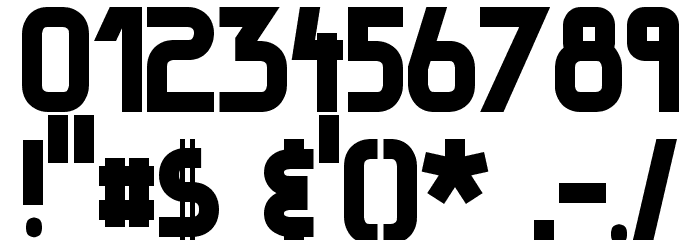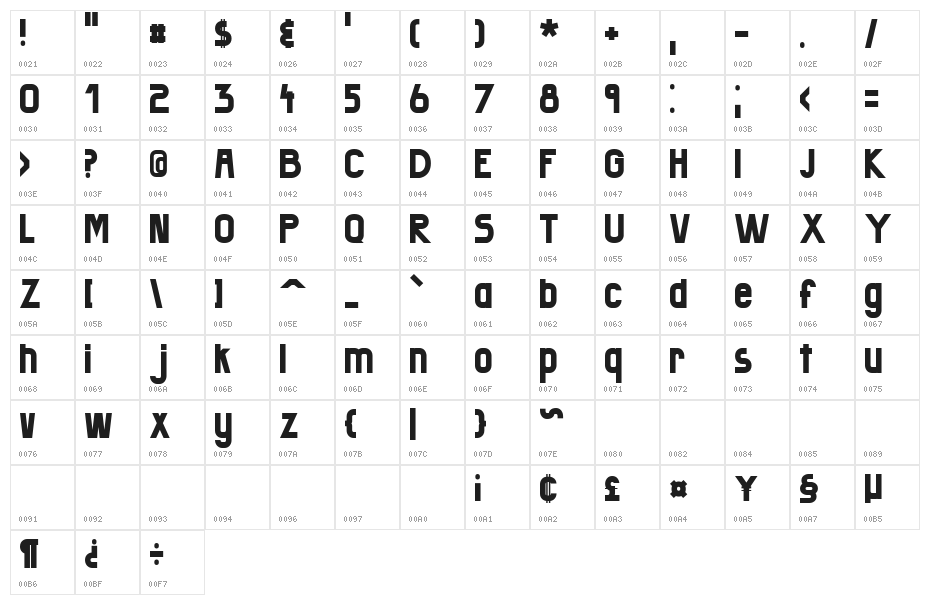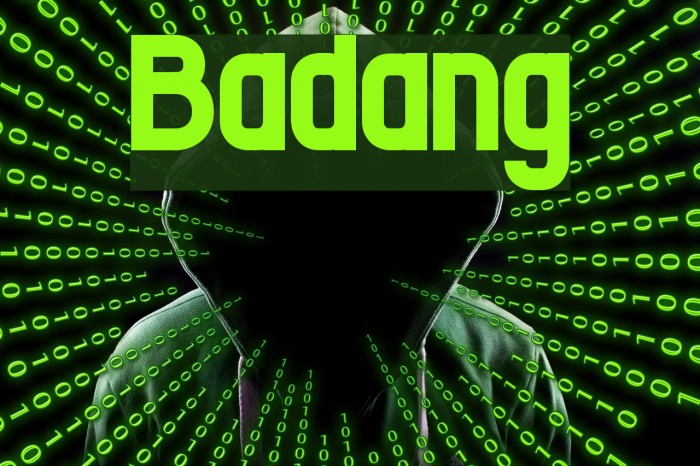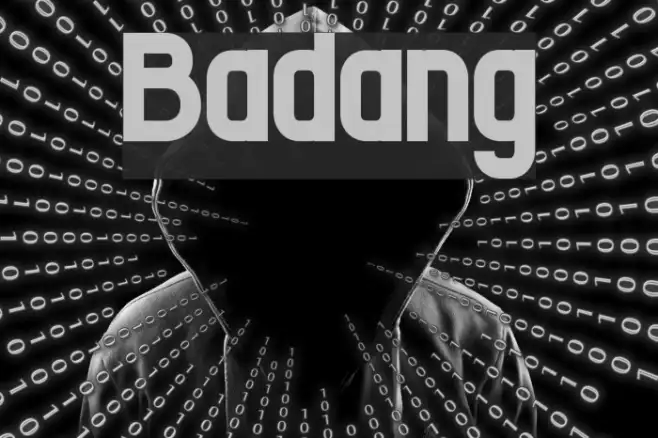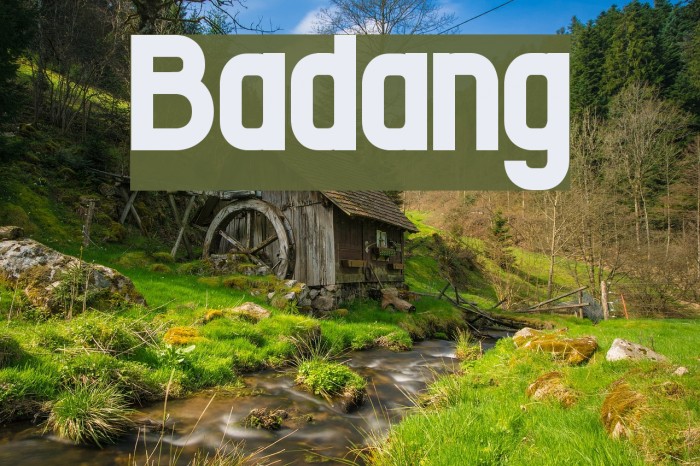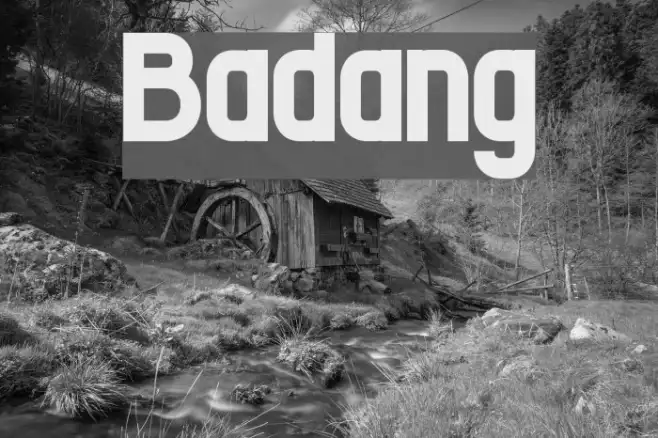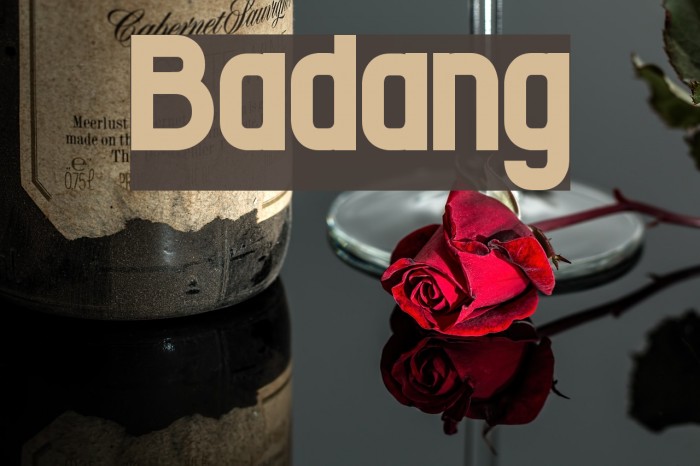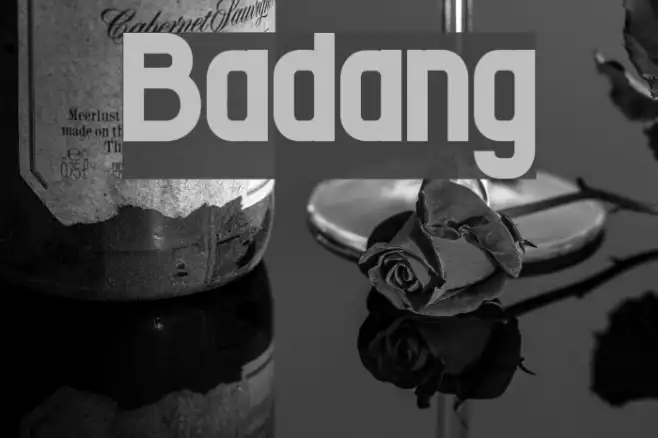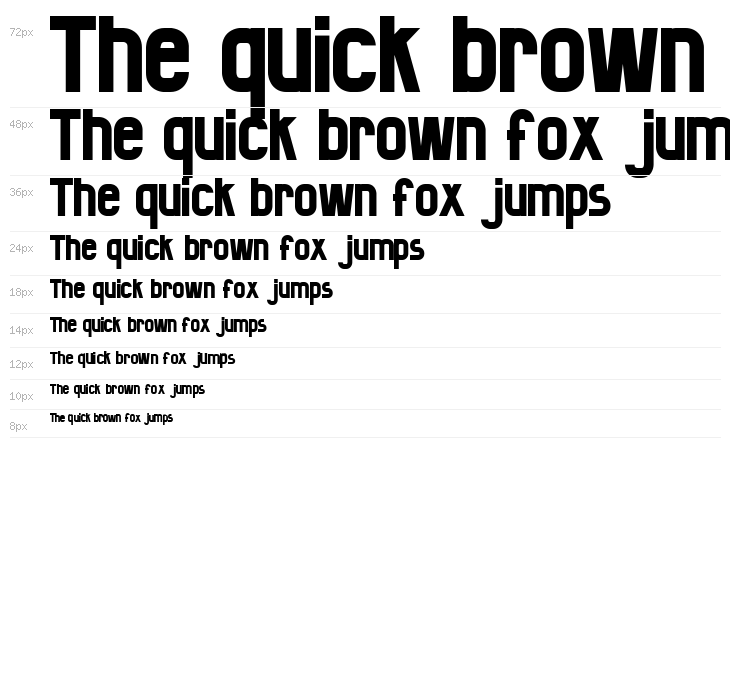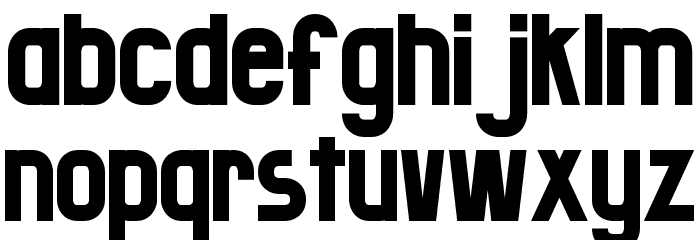
This font features a bold and robust design with a strong geometric structure. The characters are uniformly thick, giving it a powerful and impactful presence. The uppercase letters are tall and commanding, while the lowercase letters maintain a consistent weight, ensuring readability. The numerals are distinct and clear, with a modern touch that complements the overall style. Special characters are designed to match the boldness of the alphabet, making them stand out effectively. This font is ideal for projects that require a strong visual impact.
| Proposed Projects | Ideal for headlines, posters, branding, and advertising where a strong visual impact is needed. |